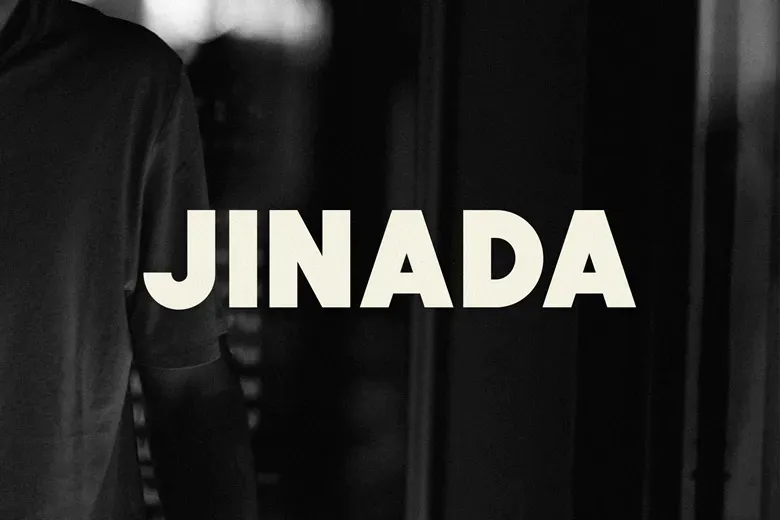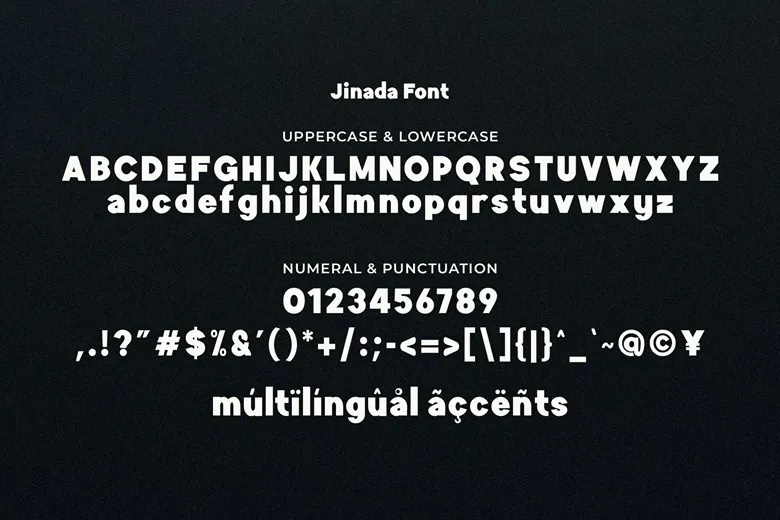
Jinada is a bold and modern sans serif font designed to make a statement. Its strong, confident letterforms are perfect for creating striking headlines, standout logos, and impactful branding materials. Balancing simplicity with strength, Jinada brings a commanding presence to any design where typography needs to take center stage.
With clean lines and sharp edges, it ensures excellent readability across both print and digital platforms. Add Jinada to your creative toolkit to convey power, clarity, and style—with unmistakable confidence.
Jinada Sans Serif Font